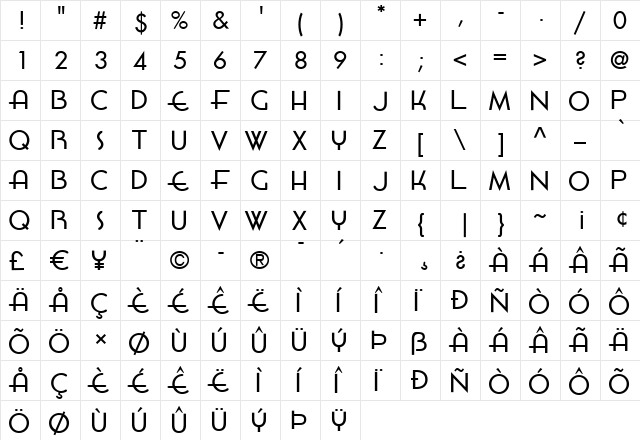
HamburgerSandwitch Regular
Design Context for HamburgerSandwitch Typeface
HamburgerSandwitch takes a measured approach to typography — its balanced proportions and neutral character make it a reliable workhorse for both digital and print work.